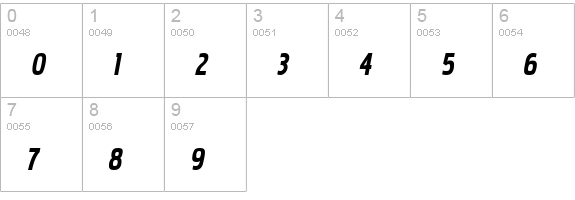
Pakenham Cnd Bold Italic is a strong, high-contrast, italic variant in the Pakenham typeface family \xE2\x80\x94 well suited to headlines, attention-grabbing titles, and strong calls-to-action.
Pakenham Cnd Bold Italic is a striking and versatile typeface that exudes a sense of modern elegance and sophistication. Its bold and italicized design adds a touch of flair to any project, making it perfect for headlines, logos, and branding materials. The sleek and streamlined letterforms of Pakenham Cnd Bold Italic make it a standout choice for both print and digital designs. What makes Pakenham Cnd Bold Italic even more appealing is that it is available for free download at FontsMarket.com. This means that you can easily access this high-quality font without any cost, making it an excellent choice for designers and creatives looking to elevate their work without breaking the bank. Don't miss out on the opportunity to add Pakenham Cnd Bold Italic to your font library today and take your designs to the next level.